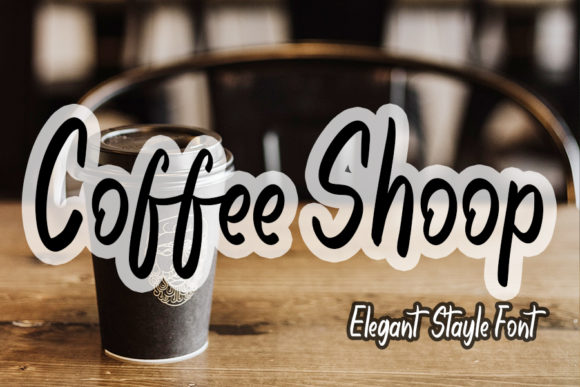
Step into the realm of charm and elegance with Coffee Shoop Font, a captivating script font that will transform your creative visions into masterpieces. Its delicate curves and graceful lines embody the essence of sophistication, making it the perfect choice for logo designs that demand attention. Adorned with an enchanting handwritten touch, this font exudes a timeless allure that will elevate your designs to new heights.
Immerse yourself in the world of Coffee Shoop Font and let your imagination soar. With its versatility, this font seamlessly adapts to a myriad of design projects, from logos and branding to invitations and social media posts. Unleash your creativity and craft designs that speak volumes, leaving an indelible mark on your audience.
As featured in the renowned Best Font For Logo Design 2013, Coffee Shoop Font has garnered widespread recognition for its distinctive style and exceptional performance. Its unique charm has captured the hearts of designers worldwide, making it a sought-after font for those seeking to create truly remarkable logos.
Experience the magic of Coffee Shoop Font and elevate your designs to the next level. Its effortless flow and elegant curves will captivate your audience, leaving them spellbound by the beauty of your creations. Discover the endless possibilities that await you with this extraordinary font, and embark on a journey of artistic expression like never before.